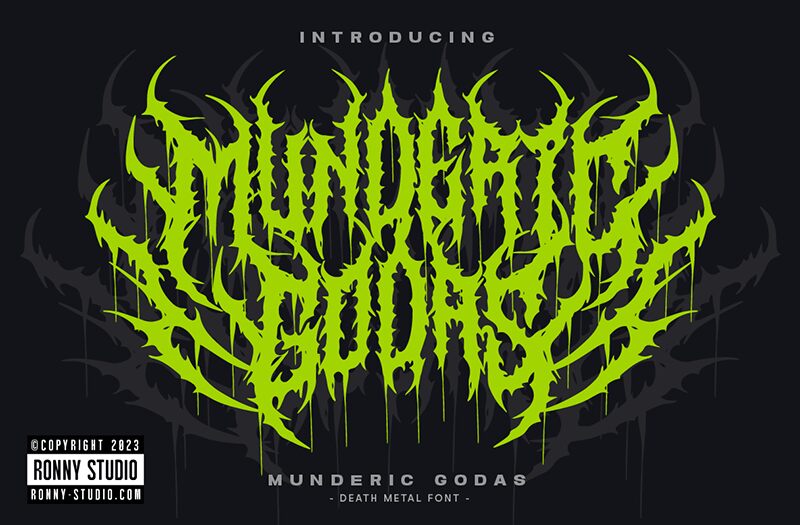
The Munderic Godas font family by Ronny Studio is a striking and modern take on the gothic style. Its bold, angular letterforms exude a sense of strength and intensity, creating a powerful visual impact. The condensed width adds to the font's dramatic flair, giving it a bold and commanding presence that immediately demands attention. The intricate, jagged edges and deep, inky black hue evoke a sense of raw, primal energy, making this font a true standout in the realm of contemporary typography.
Munderic Godas' versatility shines through in its ability to adapt to a wide range of design contexts. Its bold, eye-catching aesthetic lends itself well to branding and marketing materials, where it can effectively convey a sense of authority, edginess, and a touch of the rebellious. Additionally, this font would be an excellent choice for use in album covers, movie posters, and other media that require a striking, memorable visual impact.